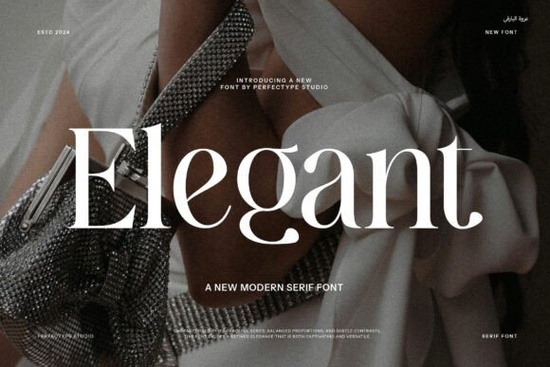
When you're looking for a font that adds a touch of class and sophistication to your designs, the Elegant Font is a fantastic choice. This font features smooth, stylish letters with thin lines and graceful curves, making it perfect for a wide range of creative projects.
Why Choose an Elegant Font for Your Designs?
An elegant font can transform a simple design into something truly special. Whether you're working on wedding invitations, branding materials, or even just a personal project, using an elegant font can make your work stand out. The refined and polished look of these fonts often evokes a sense of luxury and professionalism, which can be particularly appealing to clients and customers.
How to Use Elegant Fonts in Different Projects
Elegant fonts are incredibly versatile and can be used in a variety of design contexts. Here are some ideas on how to incorporate them into your projects:
- Wedding Invitations: Use an elegant font for the names and key details to give your invitations a sophisticated and romantic feel.
- Branding and Logos: For a high-end, professional look, consider using an elegant font in your company's logo or branding materials.
- Print-on-Demand Products: Add a touch of elegance to t-shirts, mugs, and other merchandise by using an elegant font for your designs.
- Book Covers and Publications: Elegant fonts can enhance the visual appeal of book covers, magazine titles, and other printed materials.
Choosing the Right Elegant Font for Your Project
With so many elegant fonts available, it can be challenging to choose the right one. Here are some tips to help you select the perfect font:
- Consider the Context: Think about where and how the font will be used. For example, a more elaborate script might be ideal for a wedding invitation, while a simpler, more legible font might be better for a business card.
- Test Legibility: Make sure the font is easy to read, especially if it will be used in small sizes or on different backgrounds.
- Match the Tone: Choose a font that complements the overall tone and style of your project. For instance, a more traditional and classic font might be better for a formal event, while a modern and sleek font could be more suitable for a contemporary brand.
Tips for Using Elegant Fonts Effectively
To get the most out of elegant fonts, here are a few additional tips:
- Use Sparingly: Elegant fonts are powerful, so use them sparingly. Too much can overwhelm the design and make it look cluttered.
- Pair with Simple Fonts: Combine elegant fonts with simpler, more legible fonts to create a balanced and harmonious design.
- Experiment with Colors and Textures: Play around with different colors and textures to see how they complement the elegance of the font.
Final Thoughts
Next Steps
Now that you know more about elegant fonts, here’s a quick checklist to help you move forward with your design project:
- Identify the context and purpose of your design.
- Browse and select a few elegant fonts that match your project’s tone and style.
- Test the fonts for legibility and overall fit.
- Combine the elegant font with a complementary, more legible font if needed.
- Experiment with colors and textures to enhance the design.
- Finalize your design and share it with your audience.